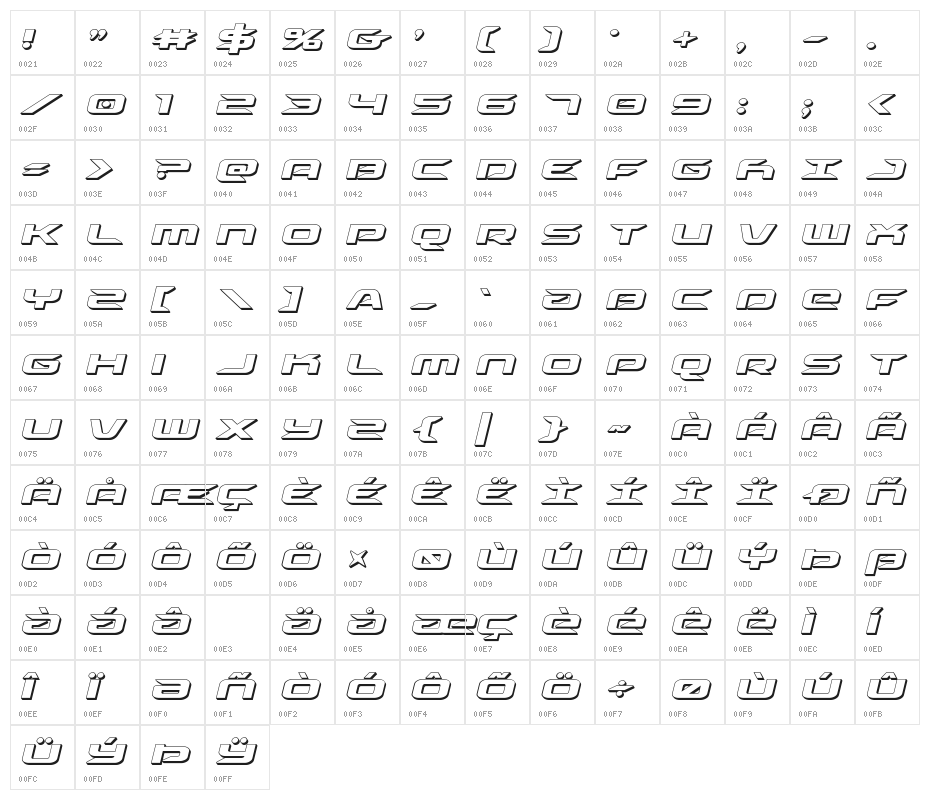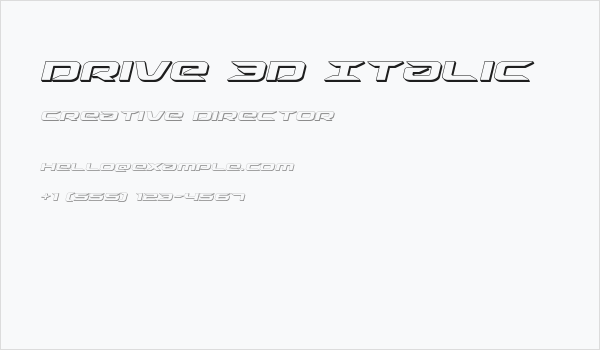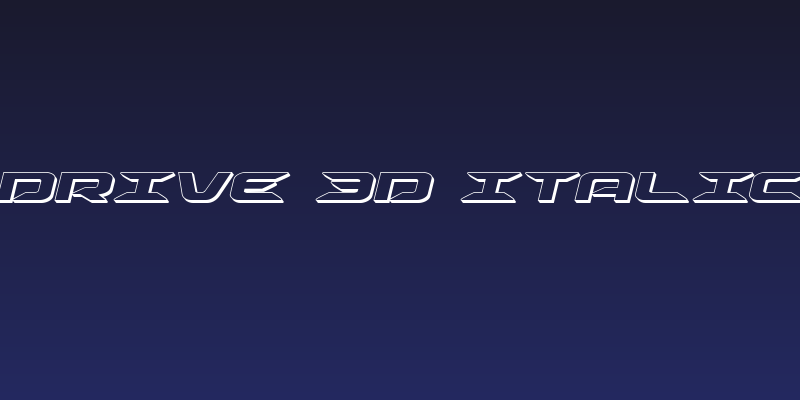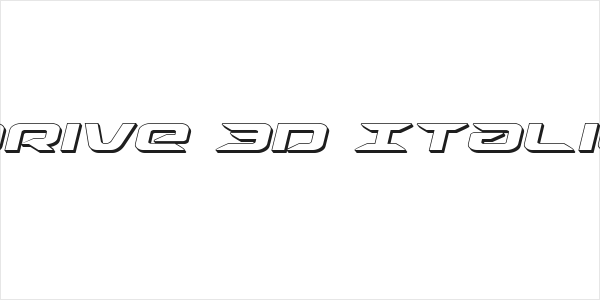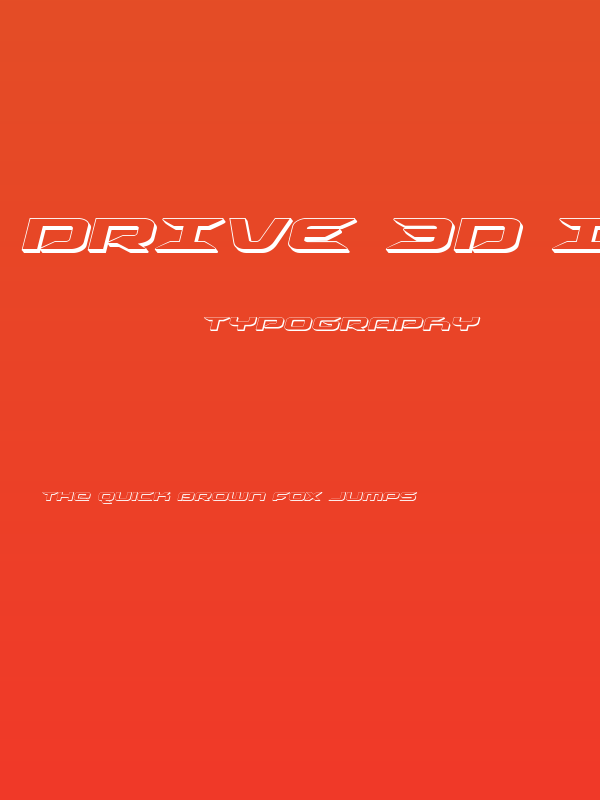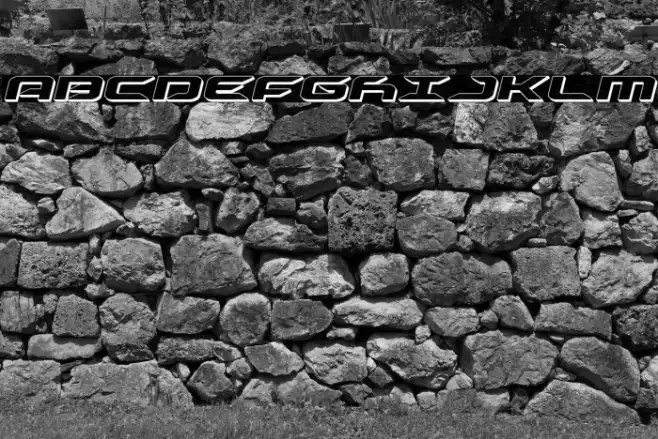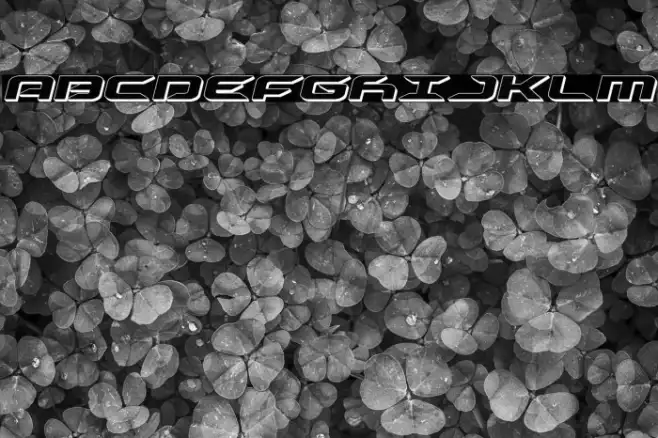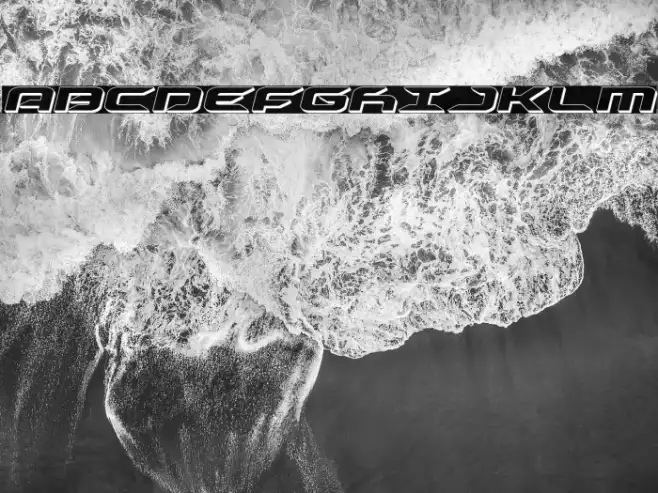
Drive 3D Italic Font
Drive 3D Italic Description
This font features a futuristic and dynamic design with a 3D effect that gives it a sense of depth and movement. The characters are italicized, enhancing the forward motion and sleekness of the typeface. Each letter is outlined, creating a bold and striking appearance. The geometric shapes and angular lines contribute to its modern and tech-inspired aesthetic. The font maintains consistency in style across uppercase, lowercase, numbers, and special characters, making it versatile for various design applications.
| Proposed Projects | Ideal for technology branding, video game titles, sci-fi movie posters, and modern digital interfaces. |